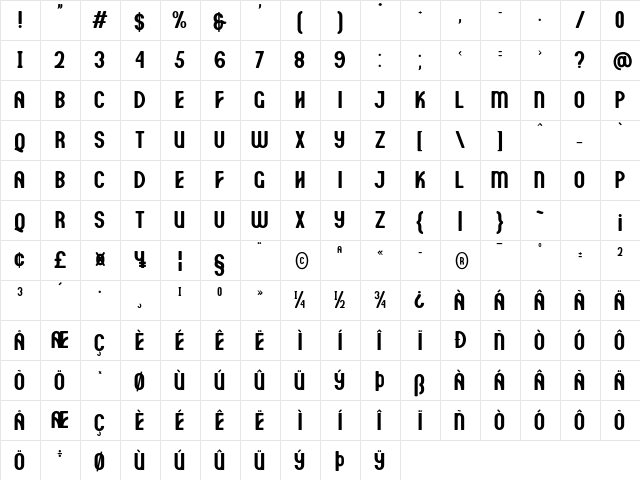
Motgan Regular
| Foundry | FallenGraphic Studio |
| Designer | Vava Aryanto |
Design Context for Motgan Typeface
Motgan is a composed and adaptable typeface that performs quietly and consistently across a wide range of design contexts.